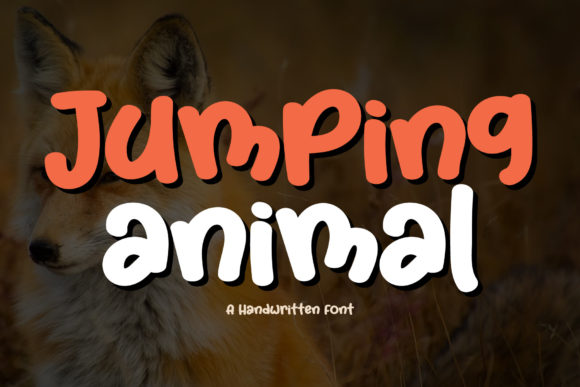
Prepare to be enthralled by Jumping Animal, a typeface that dances off the screen with its playful spirit and captivating personality. This display font is a masterpiece crafted by the renowned Wanida Toffy, designed to breathe life into your digital creations and leave an unforgettable impression.
Immerse yourself in the whimsical world of Jumping Animal, where each letter is a vibrant expression of joy and authenticity. Its playful curves and energetic strokes evoke a sense of childlike wonder, making it the perfect choice for capturing the essence of fun and excitement in your designs.
Whether you're creating eye-catching headlines, vibrant posters, or unforgettable branding, Jumping Animal empowers you to make a statement that resonates with your audience. Its versatility knows no bounds, adapting seamlessly to a wide range of design styles and applications.
Embrace the magic of Jumping Animal and unlock a realm of possibilities for your digital creations. Let its playful spirit ignite your imagination and inspire you to craft designs that connect with your audience on a deeply emotional level.